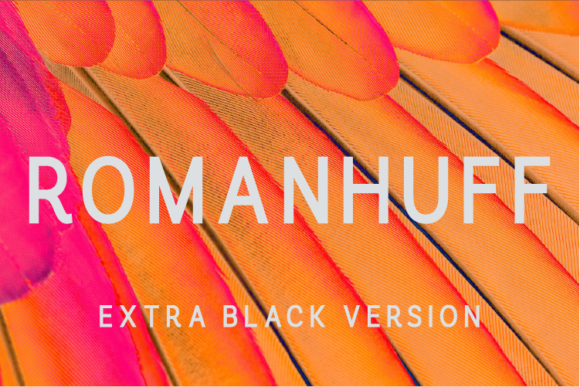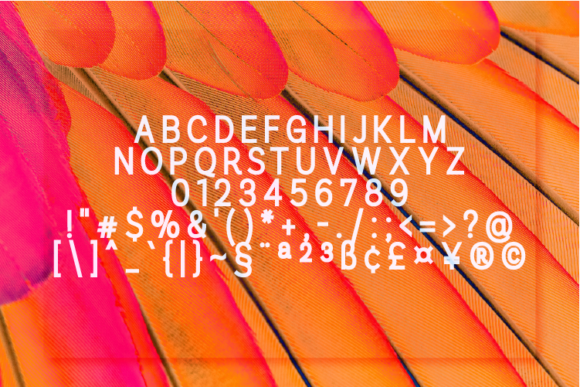
Romanhuff Extra Black Font
About Romanhuff Extra Black Font
Romanhuff is a minimalistic, timeless, and stunning all caps sans serif font that will look particularly beautiful in layouts, headers, web, and many other contexts!